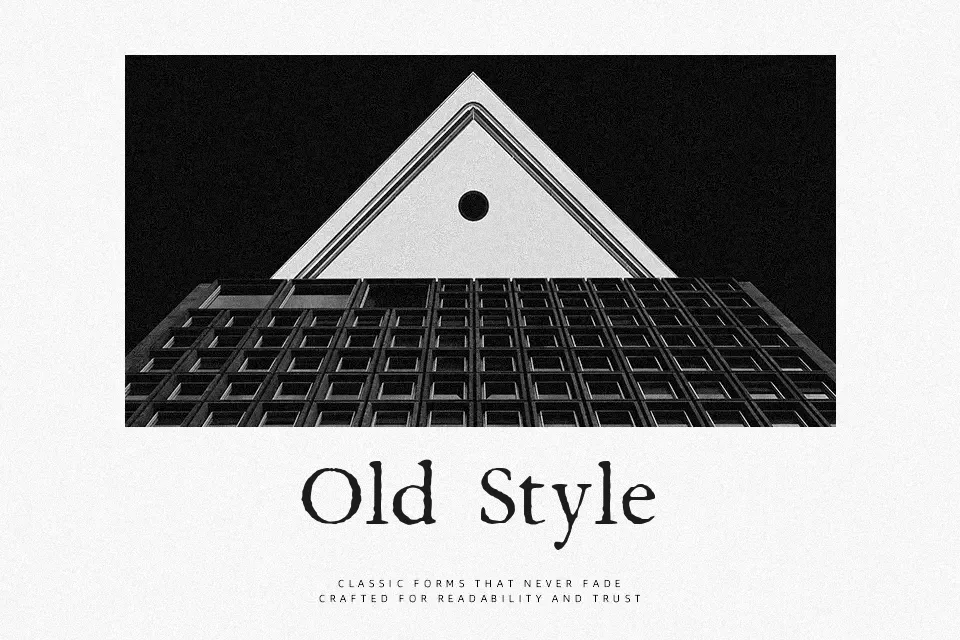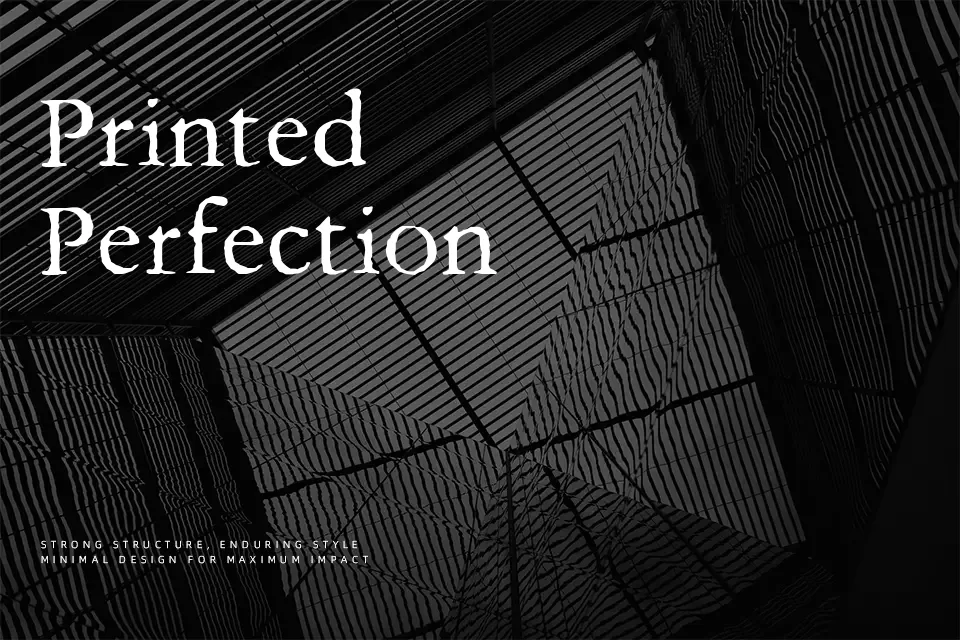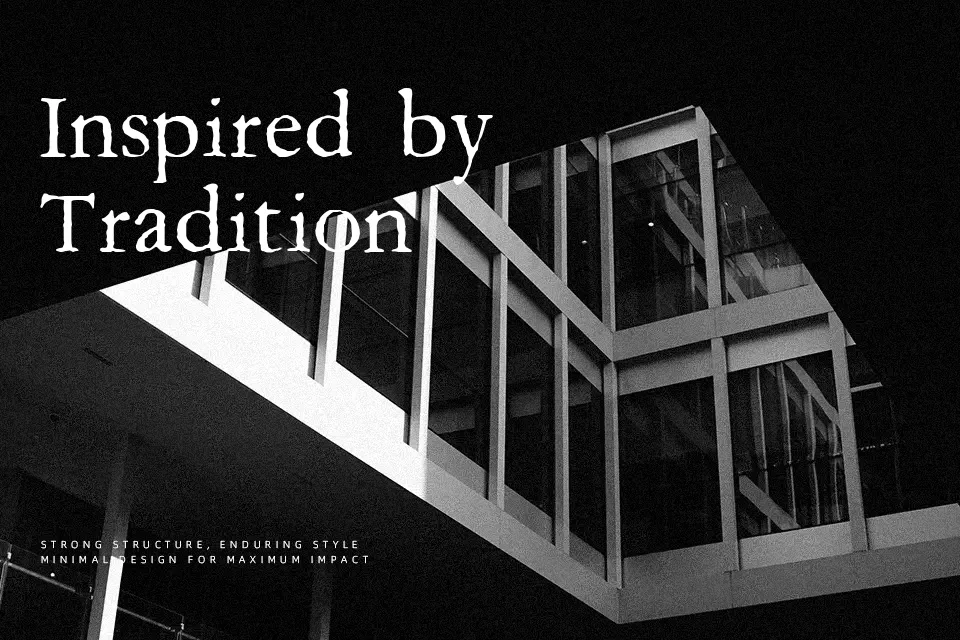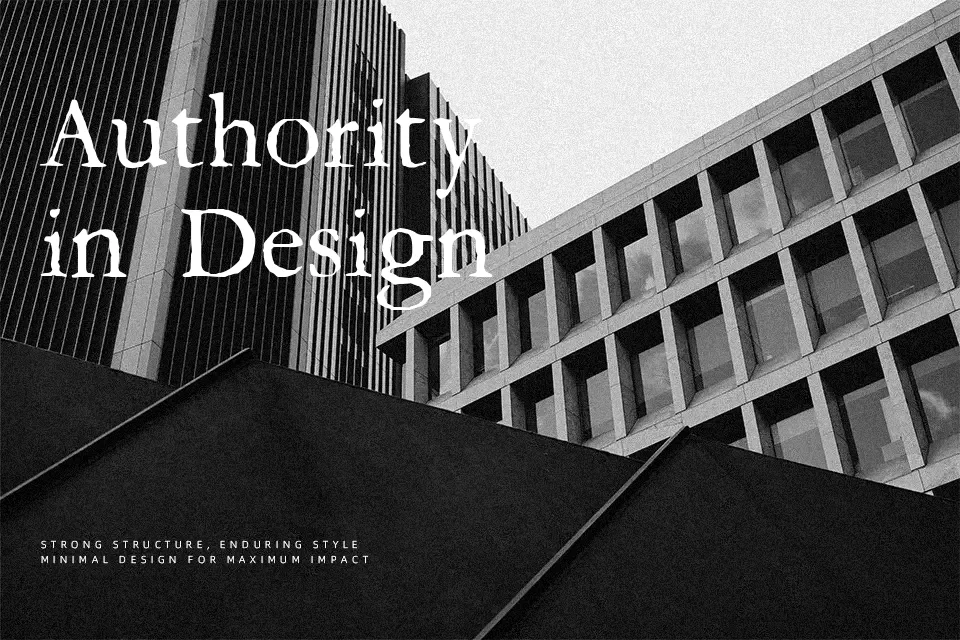
Aquifer Font
Designed by JLH Fonts
Aquifer leans into rough, eroded serif outlines, giving each Garamond-based character a worn, antique texture and slightly irregular stroke edges. The moderate contrast and classic proportions keep words recognizable, while the distressed detailing pushes it firmly into decorative territory suited to bold titles rather than small copy. It works well for vintage posters, grunge album covers, escape-room branding, or historical event graphics where you want text to feel aged and tactile. Because of its heavy texture, it becomes tiring in long paragraphs or dense UI. Use it when you need a strong, stylized headline voice, but switch to a cleaner serif for body text or formal documents.
vintage event posters
themed logo lockups
grunge album or cover art
social media title cards
small-size UI labels or captions
minimalist, ultra-clean branding
Perfect for advertising, branding, and headline, with a artistic and display style.